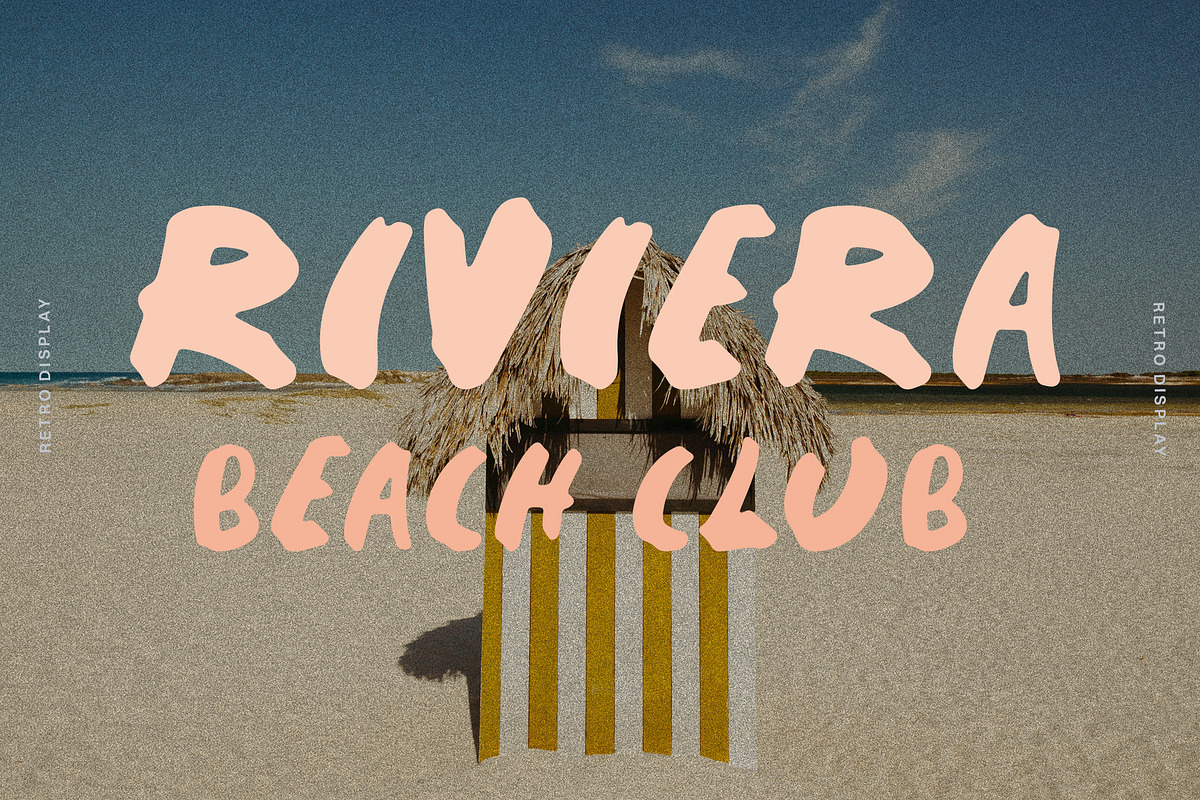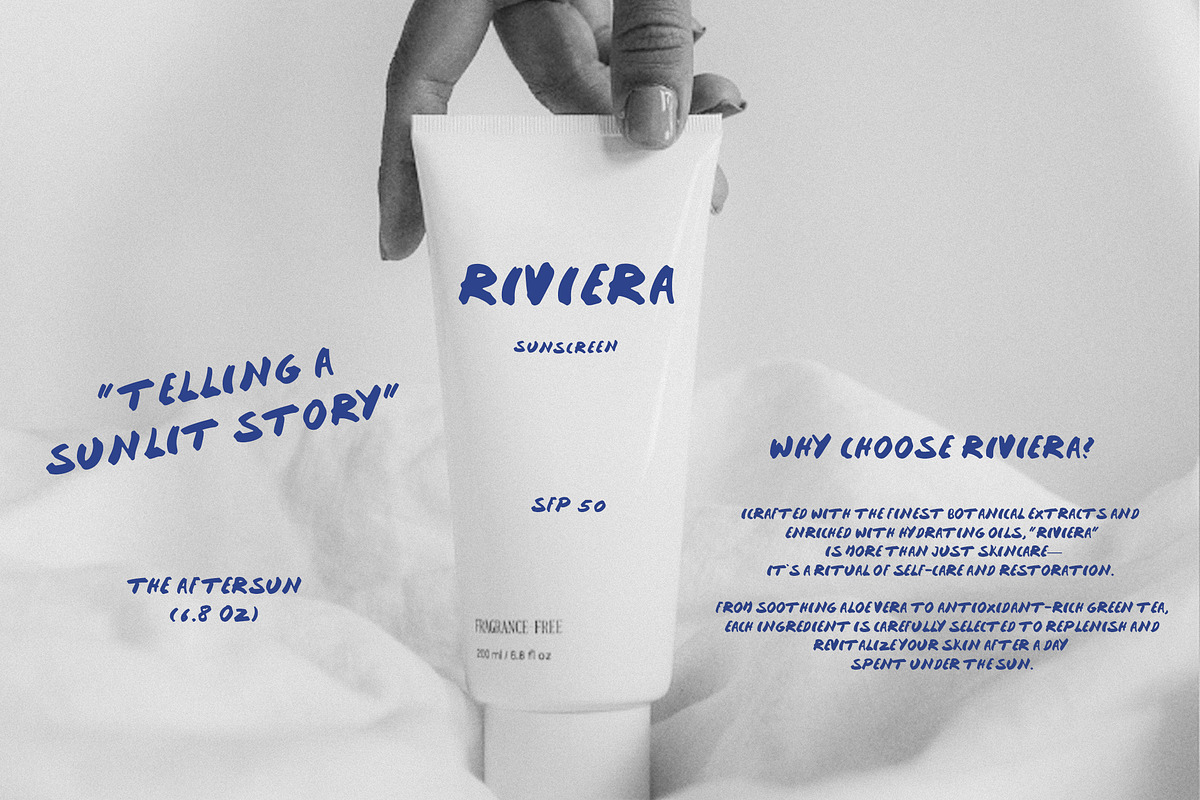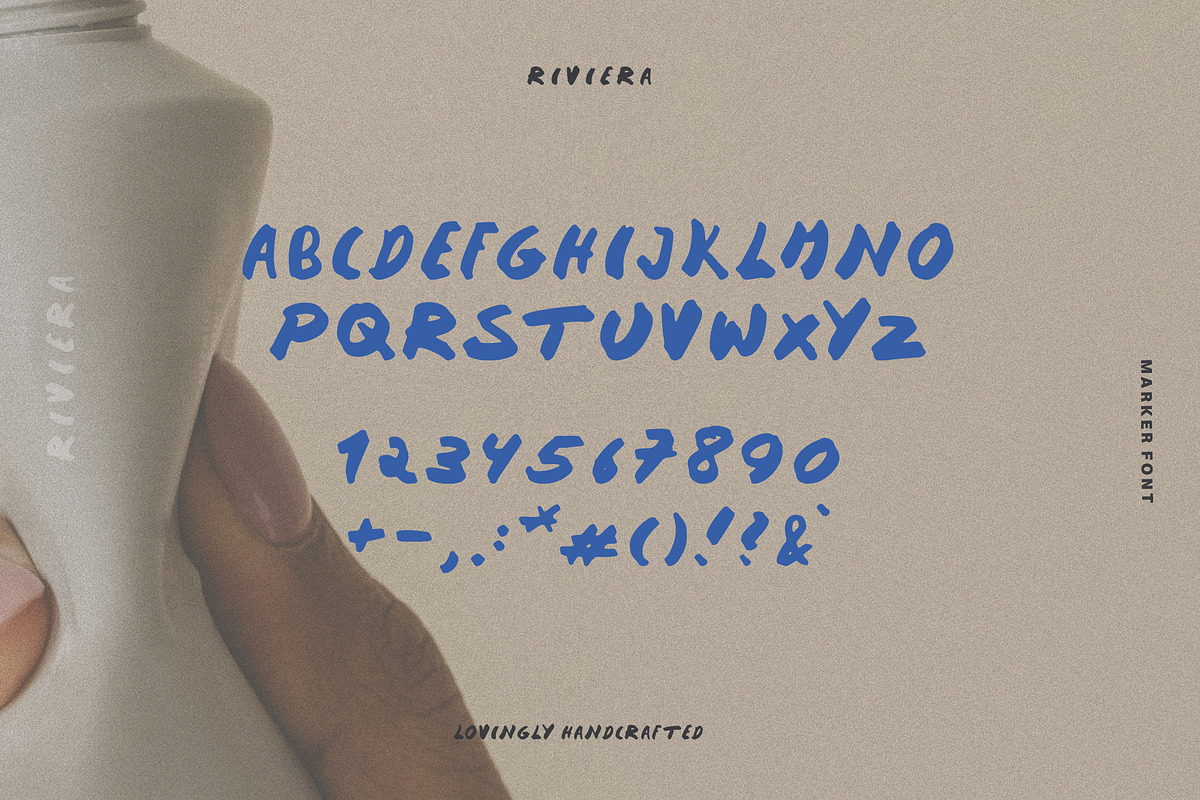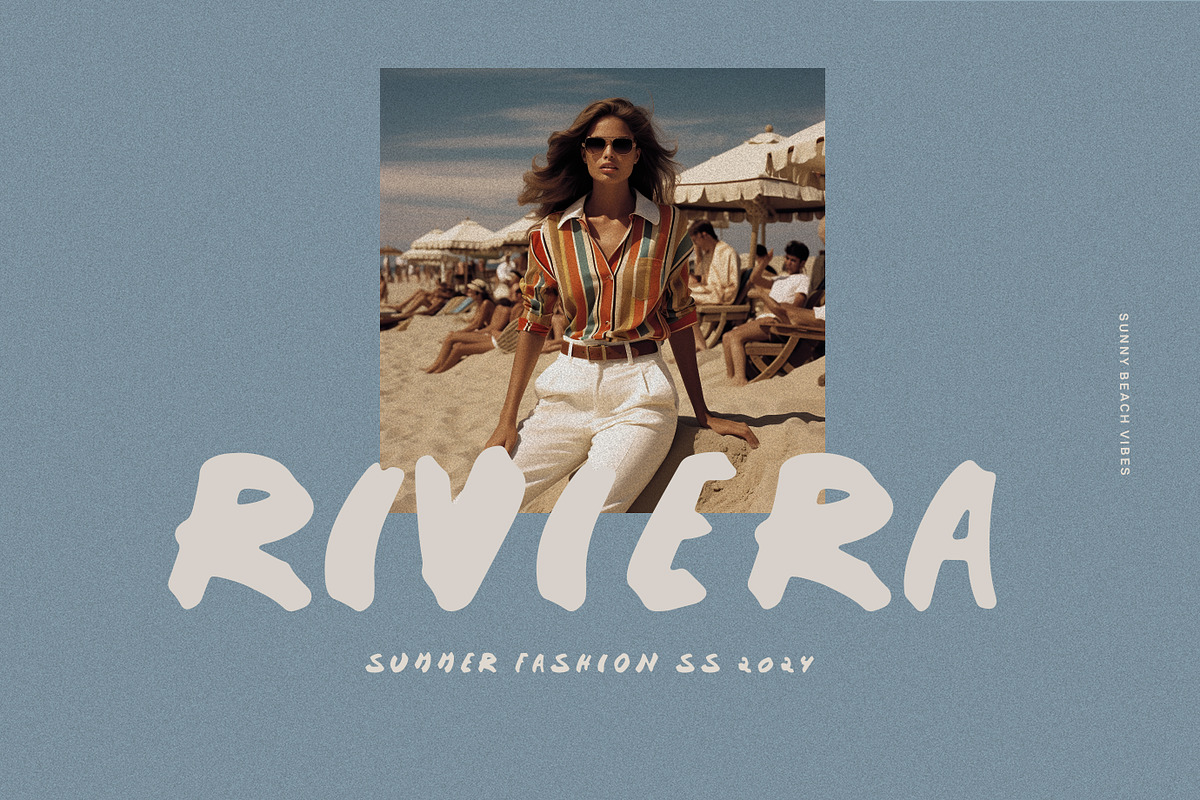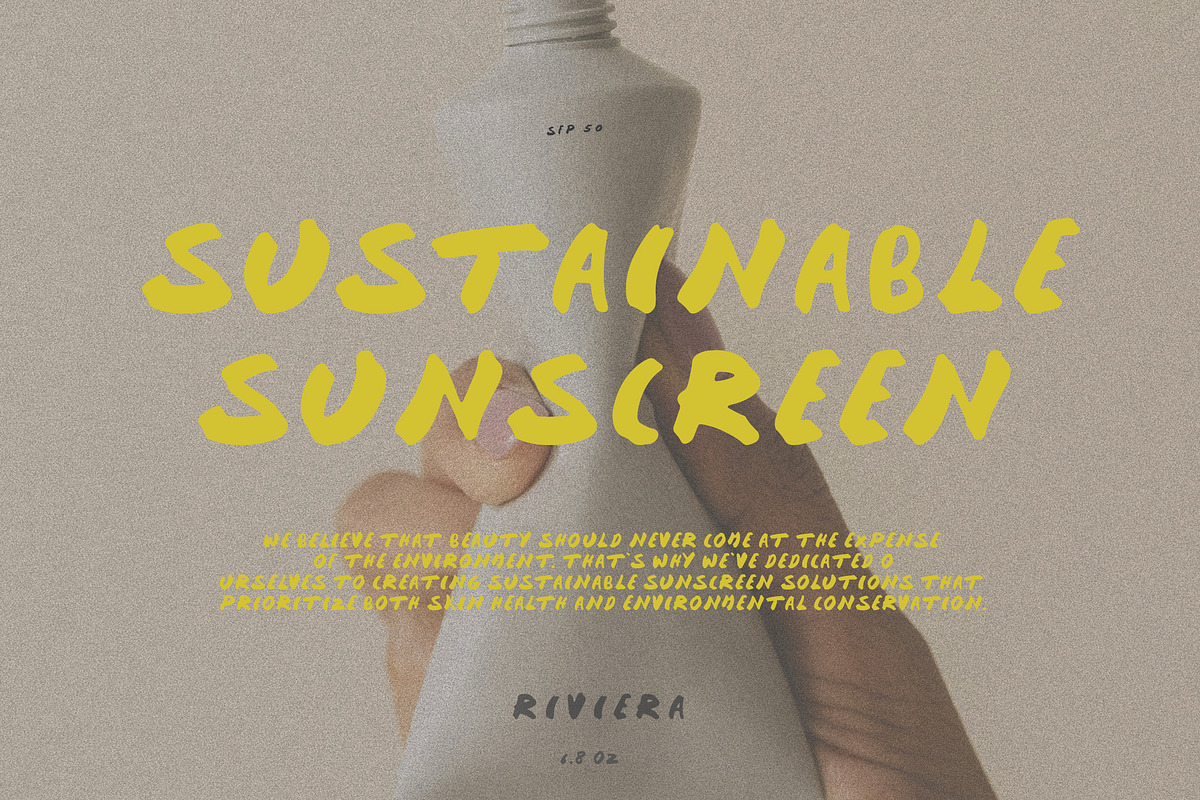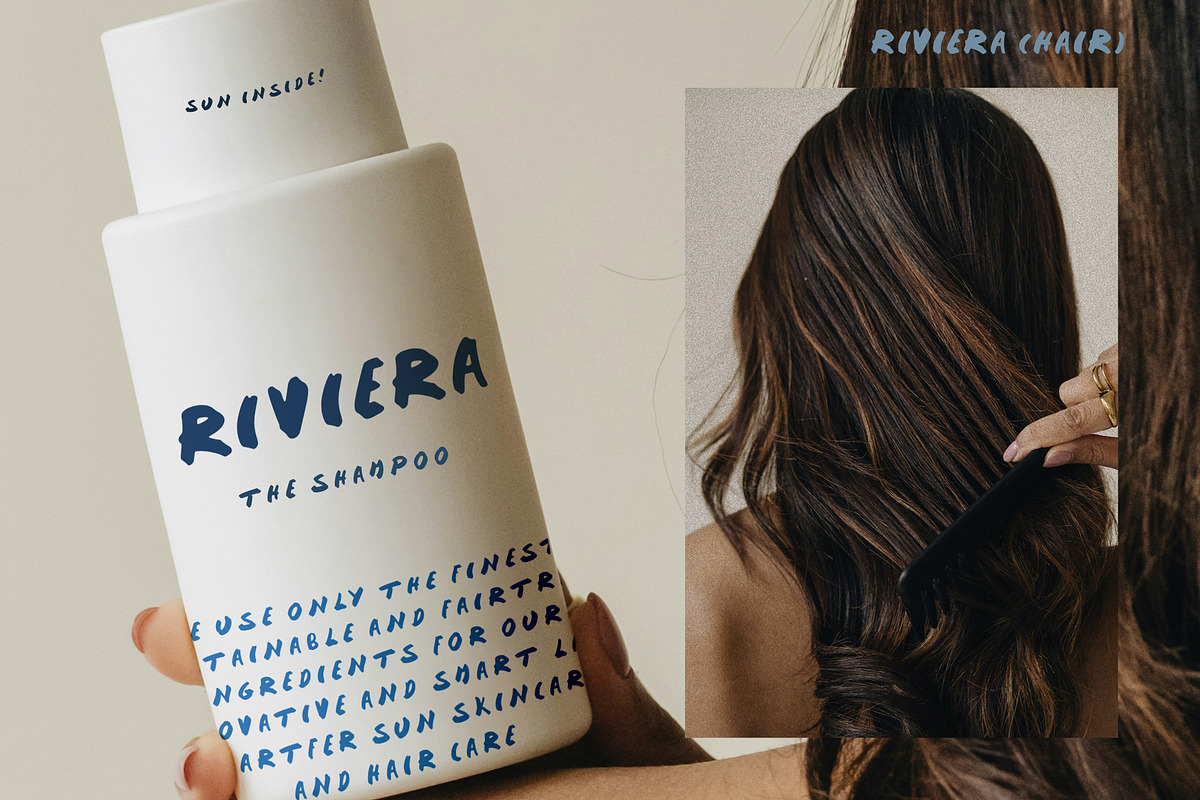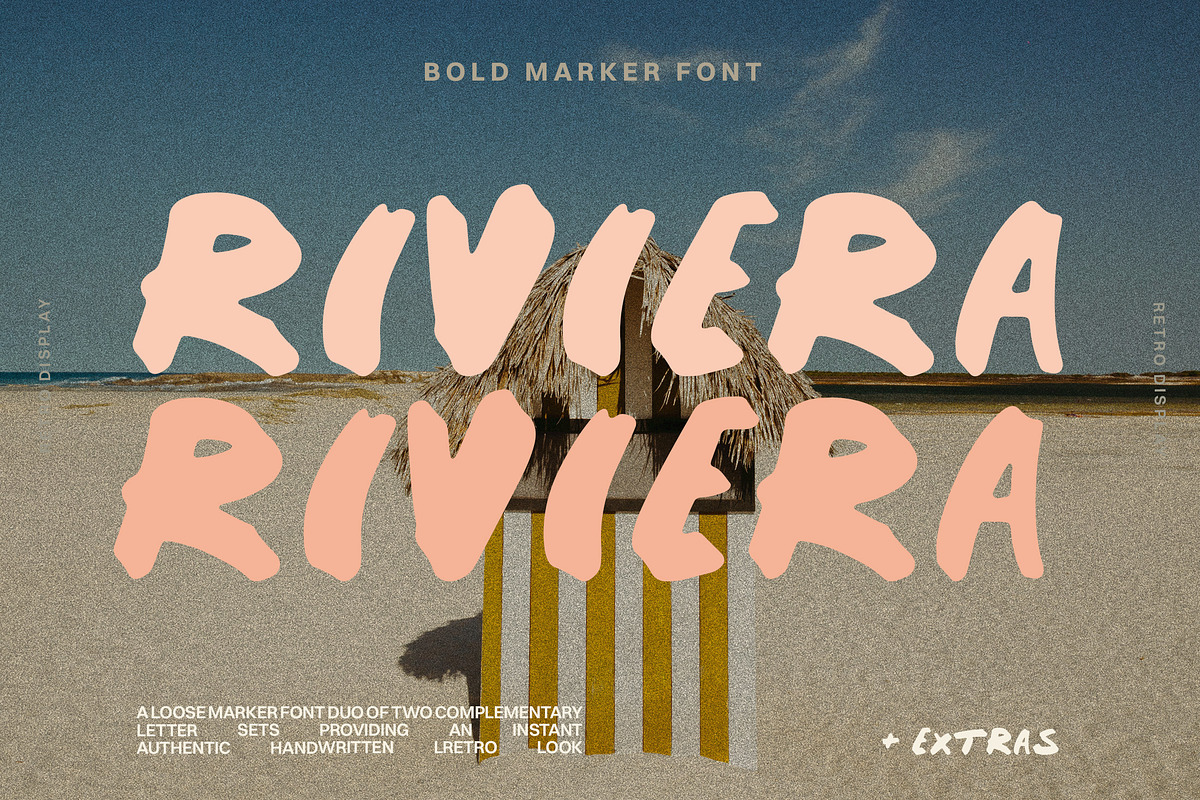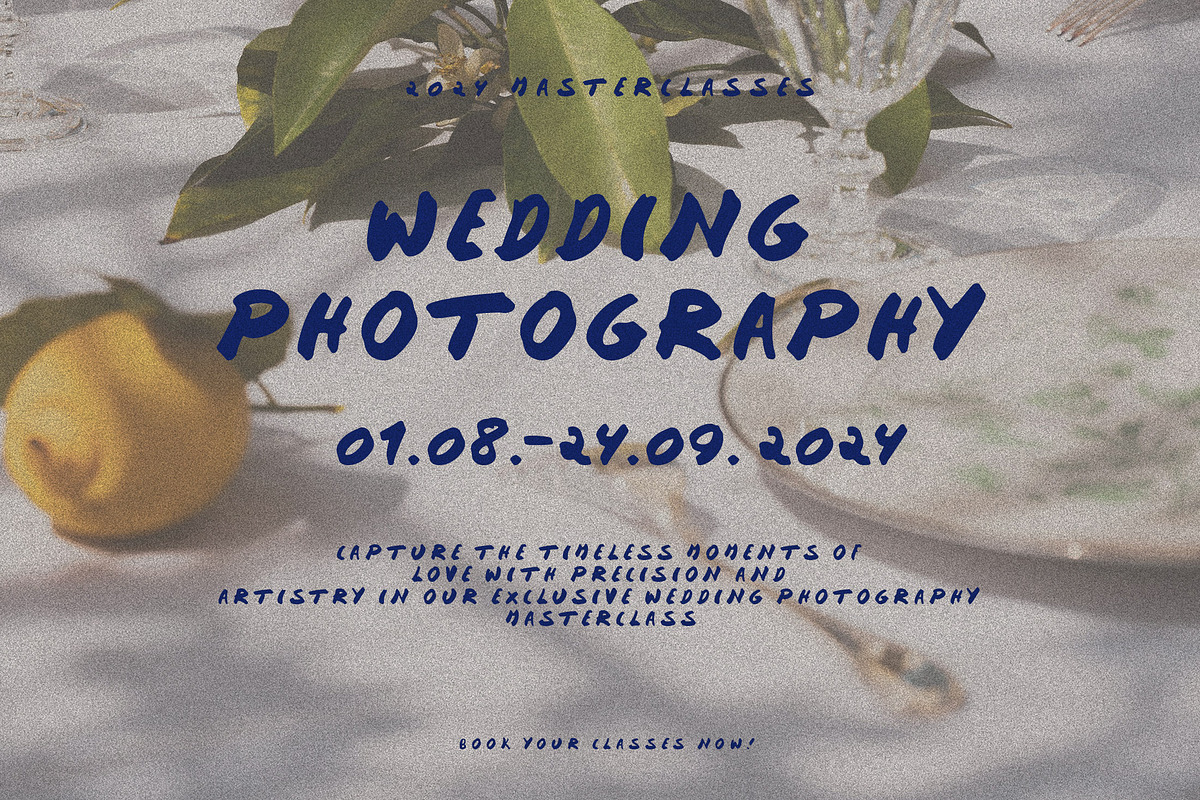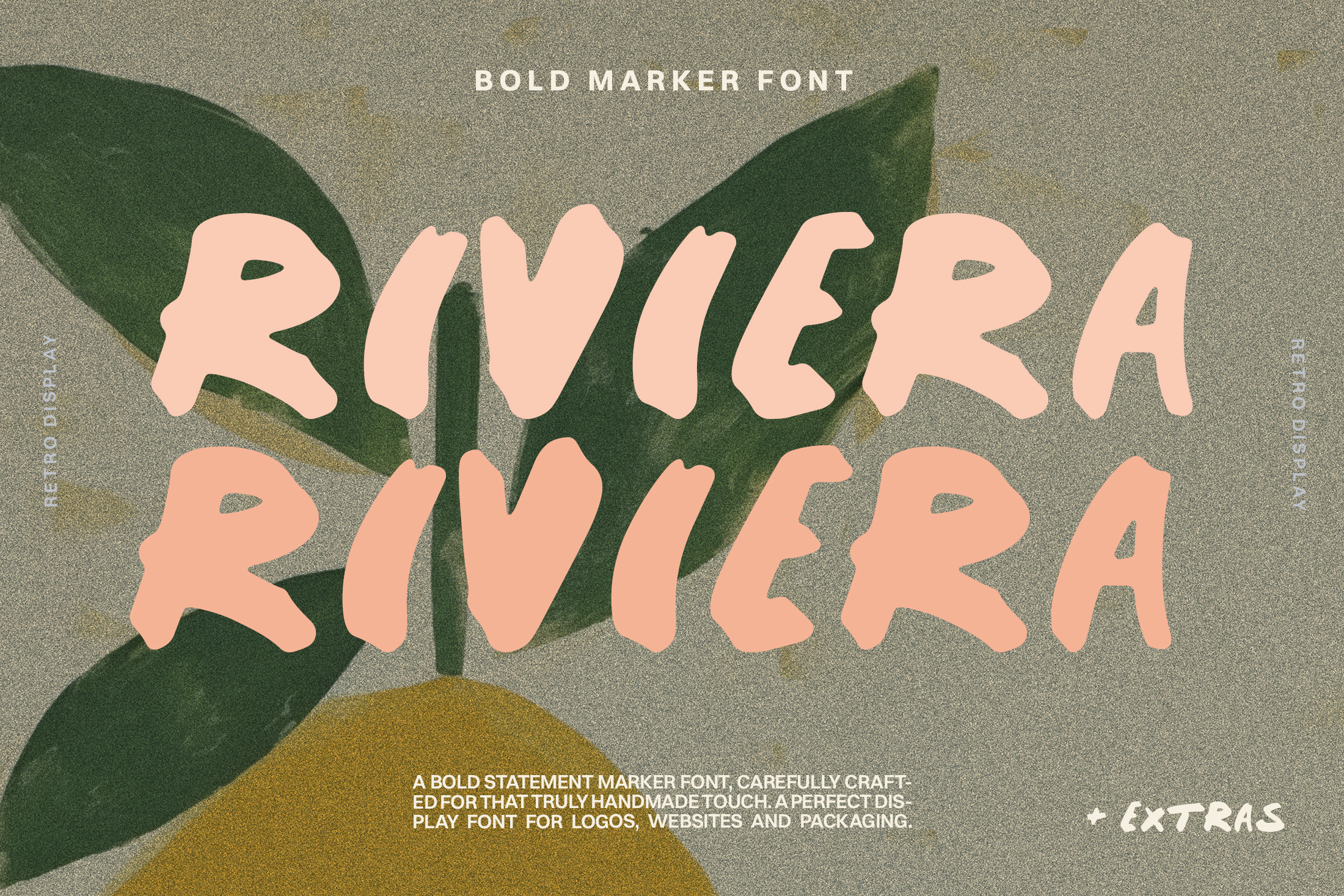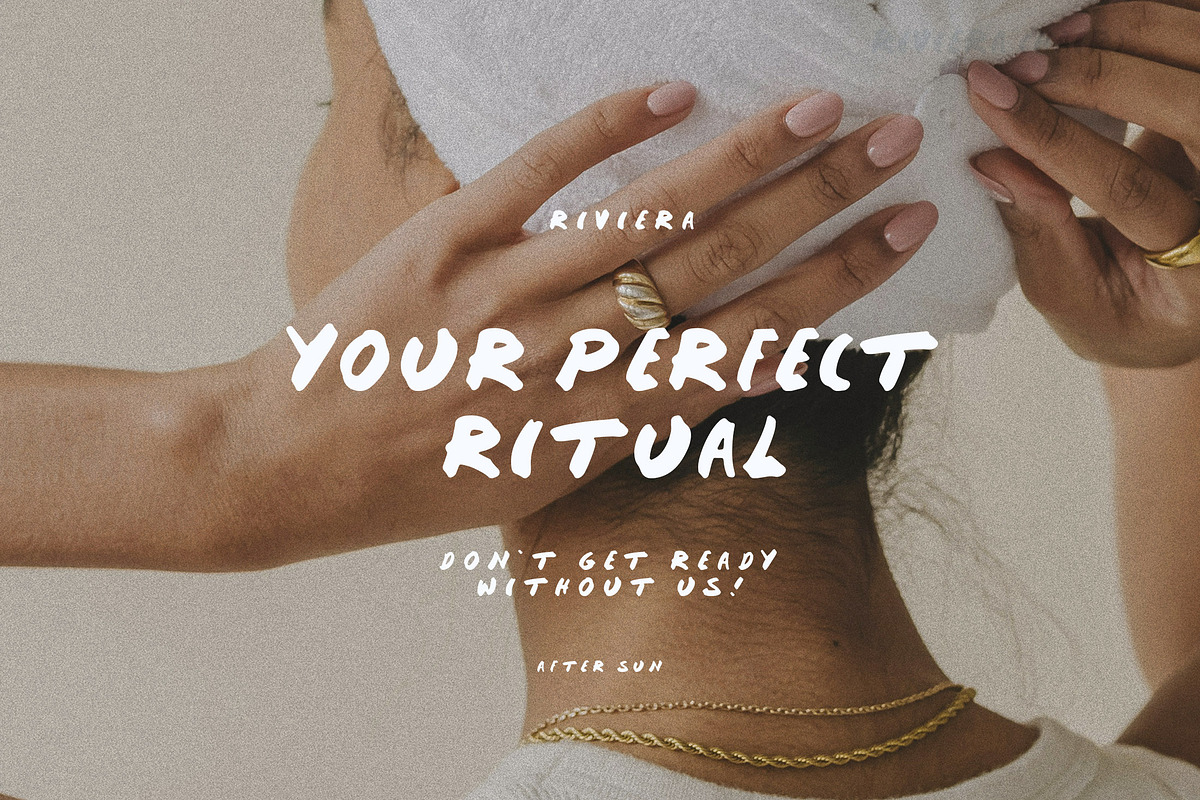
Bold Handwritten Marker Font
Transport your designs to the sun-soaked shores of the Mediterranean with Riviera - a versatile font creating an effortlessly fun and joyful vibe!
Riviera is fun, sweet and effortlessly modern with a handcrafted look that instantly catches the eye. It's perfectly bold with authentic edges, great for packaging design, branding, logo design and websites. It's handwriting note touch makes it great for prints, posters and quotes! Add Riviera to your designs and watch them come to life :) This font comes with a variety of pretty icons and extras to choose from so that you can start designing right away!
- hand drawn extras (15+ beach and seafood illustrations, vector & png)
- 5 abstract orange prints/backgrounds